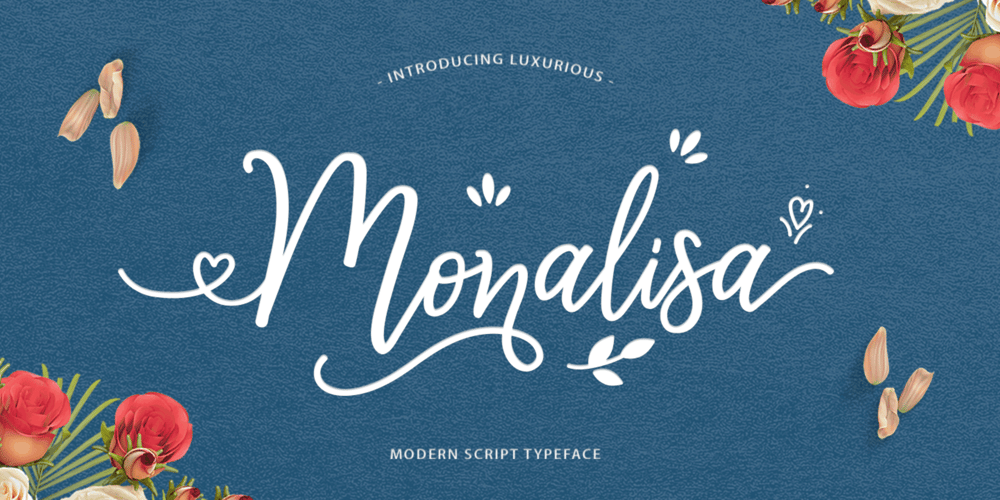
Monalisa Script
Monalisa Script font
Monalisa Script Font Family was designed by Faisal Tanjung and published by sizimon. Monalisa Script contains 3 styles and family package options. Monalisa Script is modern script typeface. Monalisa a beautiful for wedding card design, logotype, website header, fashion design and any more. Monalisa comes as a Monoline font, and also come with 413 Glyph and 37 Swash Characters. It contains a full set of lower & uppercase letters, a large range of punctuation, numerals, and multilingual support.What’s Include : Monalisa Script OTF & TTF Monalisa Script Swash OTF PUA encode Bonus Swash Multilingual support : (Danish,Finnish,English,,Spanish,Dutch,German,Icelandic,Italian,Norwegian,Portuguese,Indonesian, Swedish) To access the alternate glyphs, you need a program that supports OpenType features such as Adobe Illustrator CS, Adobe Photoshop CC, Adobe Indesign and Corel Draw.More If you have any question please do not hesitate to contact me.Thank You!